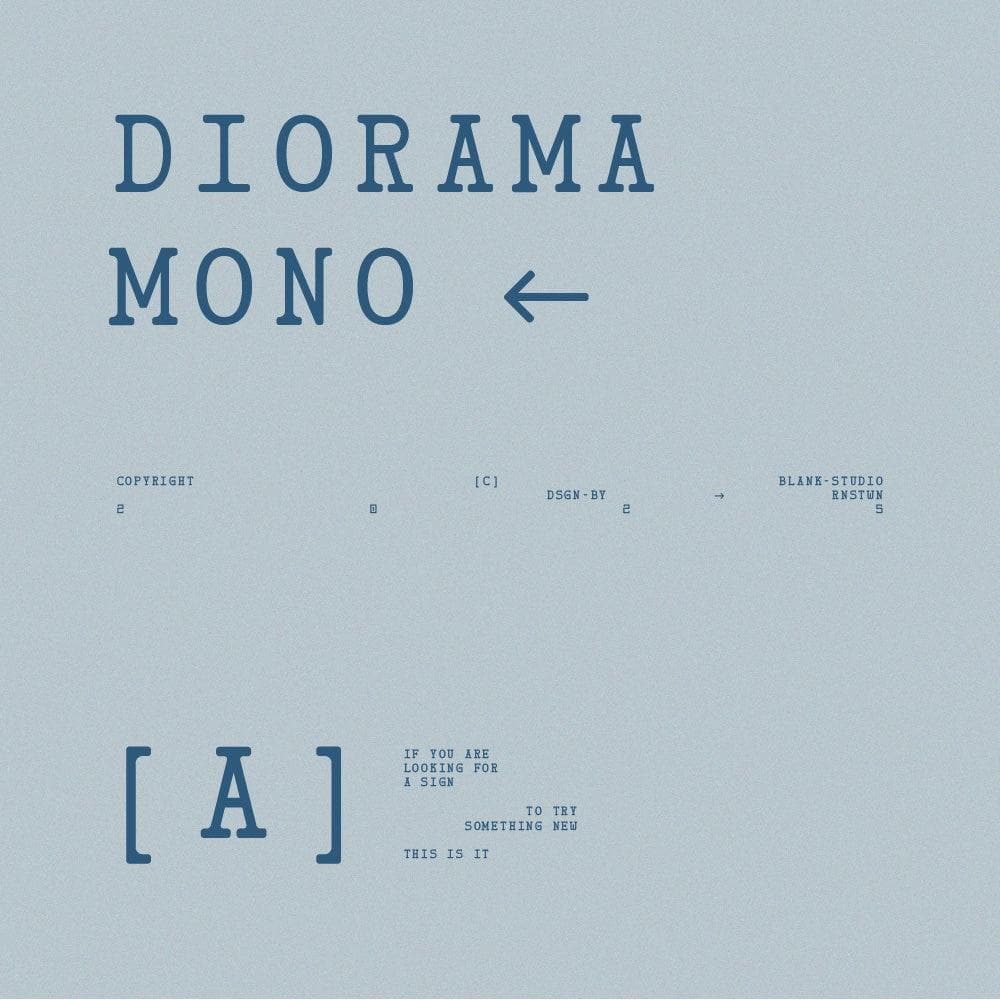
<p><strong>Introducing Diorama Mono</strong><br>Diorama Mono is a refined monospaced typeface that seamlessly blends classic elegance with a contemporary edge. Inspired by vintage typewriter aesthetics, this font carries an old-world charm while maintaining a modern, minimalist appeal.<br>Designed with precision and uniform spacing, Diorama Mono offers a balanced and structured look, making it ideal for editorial designs, branding, coding interfaces, and minimalist layouts. The subtle serif details add a touch of sophistication, elevating its readability and timelessness.<br>Whether used for retro-inspired projects or sleek modern compositions, Diorama Mono bridges the gap between past and present, providing a versatile and stylish typographic solution.</p>